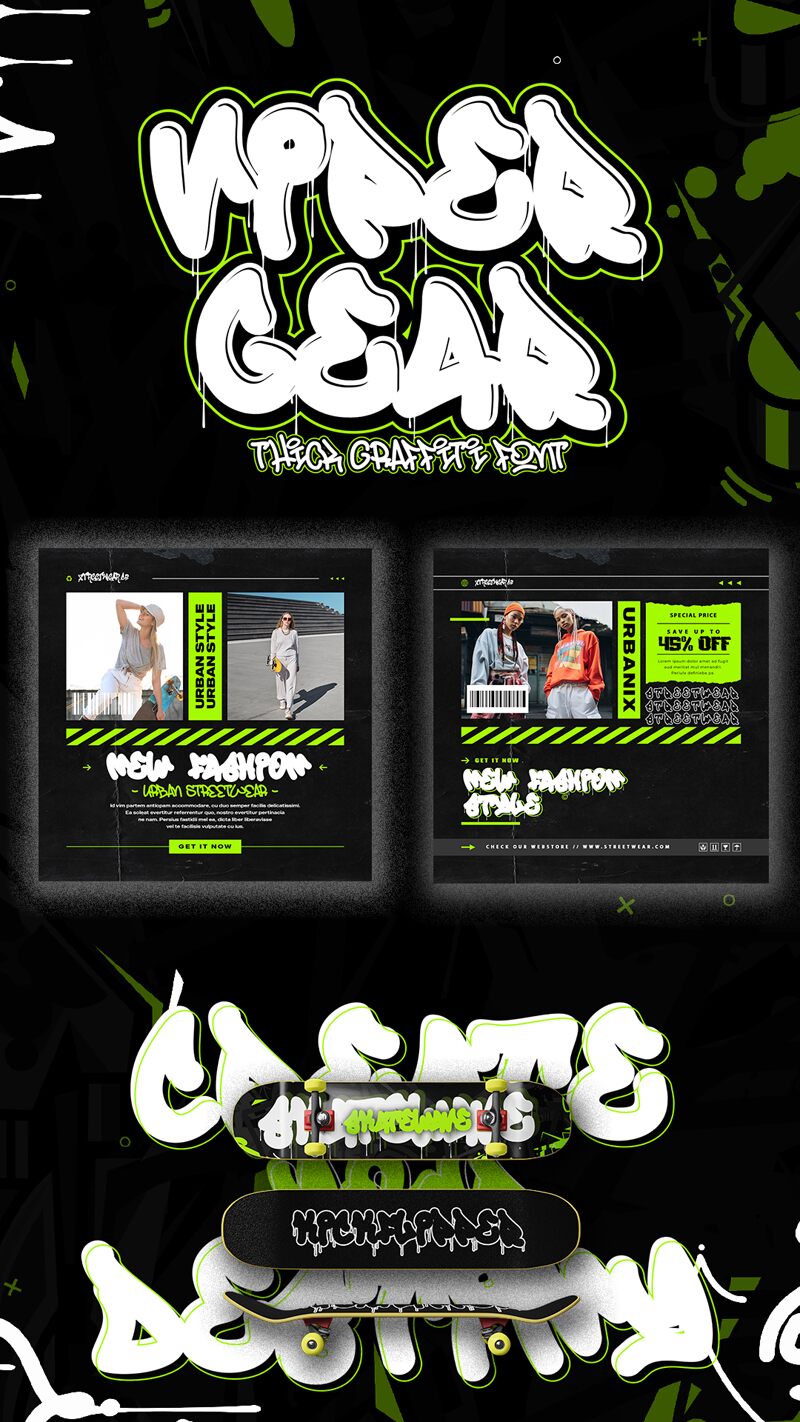
Viper Gear font family designed by Cikareotype Studio includes 2 font styles pulsating with dynamic energy that can bring an idea or concept to reality within seconds. With rebellious characters and a non-conventional style, this font family is inspired by a modern and even young attitude that plays to the reader’s eye with an instant sense of vitality and a highly-energetic design. Heavily rooted in urban culture, this graffiti-style typeface carries inspiration from the past while maintaining a distinct and unique appearance thanks to a few tweaks here and there.
Vibrant and impactful, Viper Gear can be used for branding projects including business cards and printed packages, especially food packages and electronic item packages, book and album covers, or magazine and newspaper headers. It can also be used for online projects, bringing a daring flair to items that are part of online posts, ads, blogs, banners, etc.
And finally, it can be used for games, CD covers, or even creative posters.